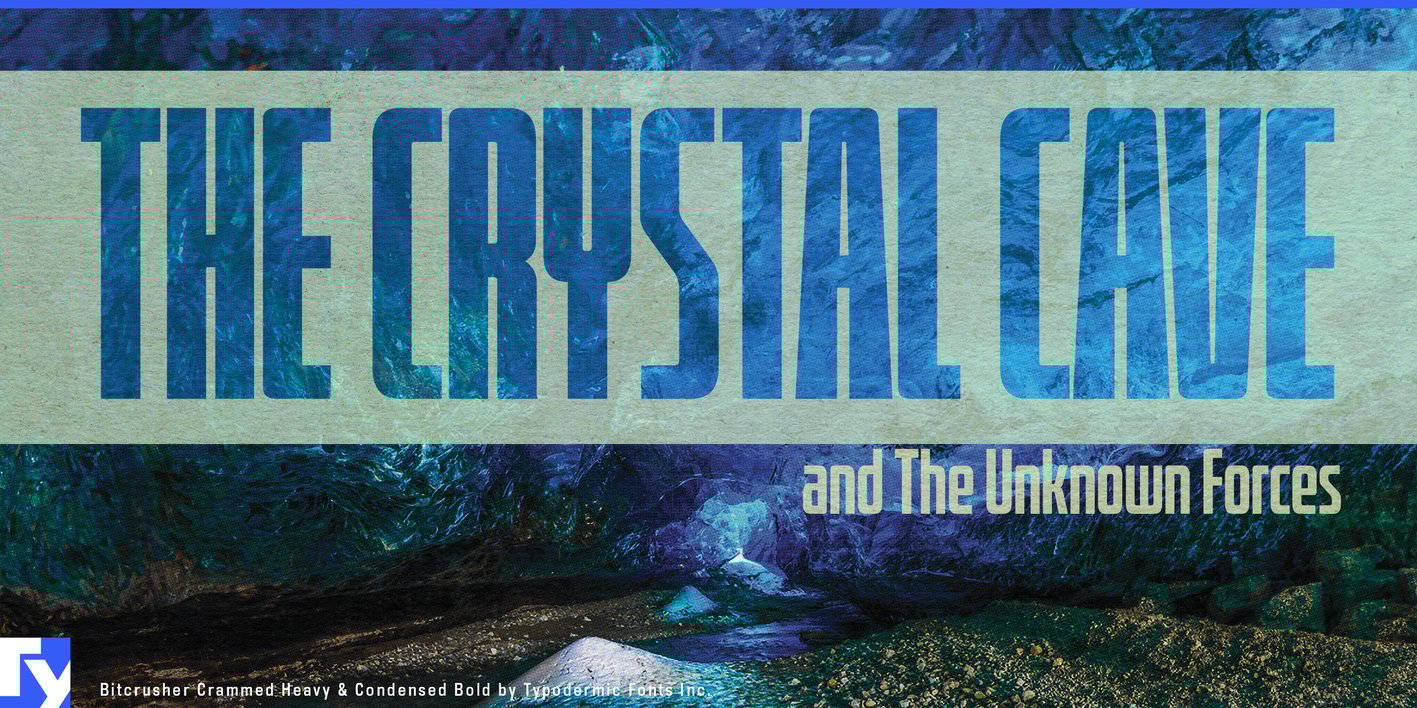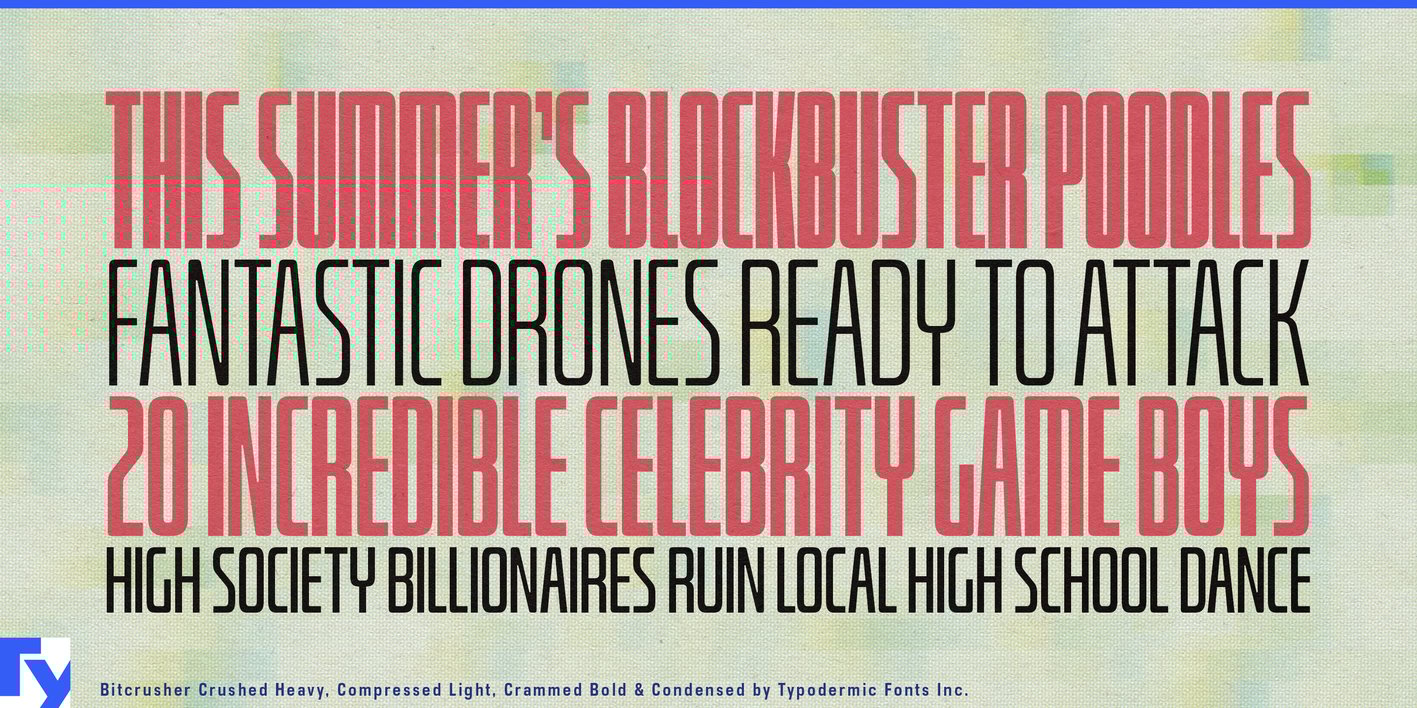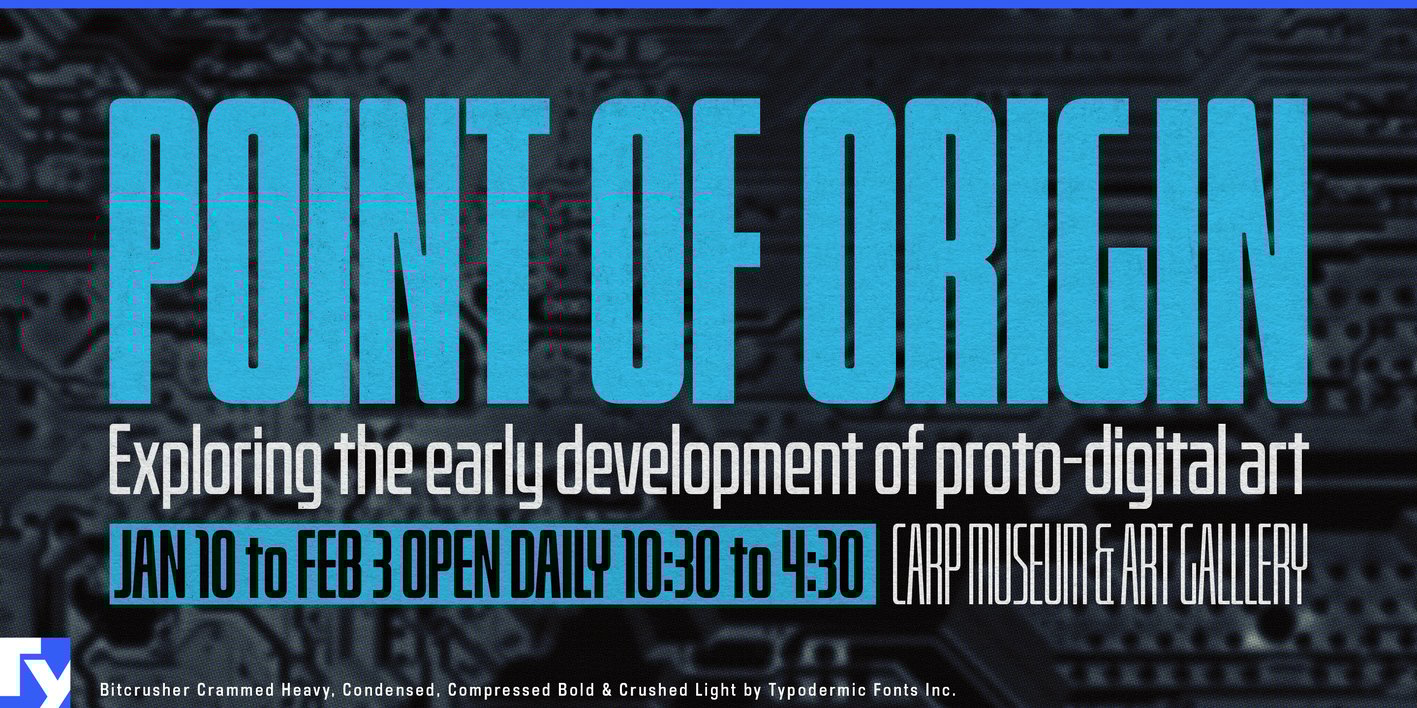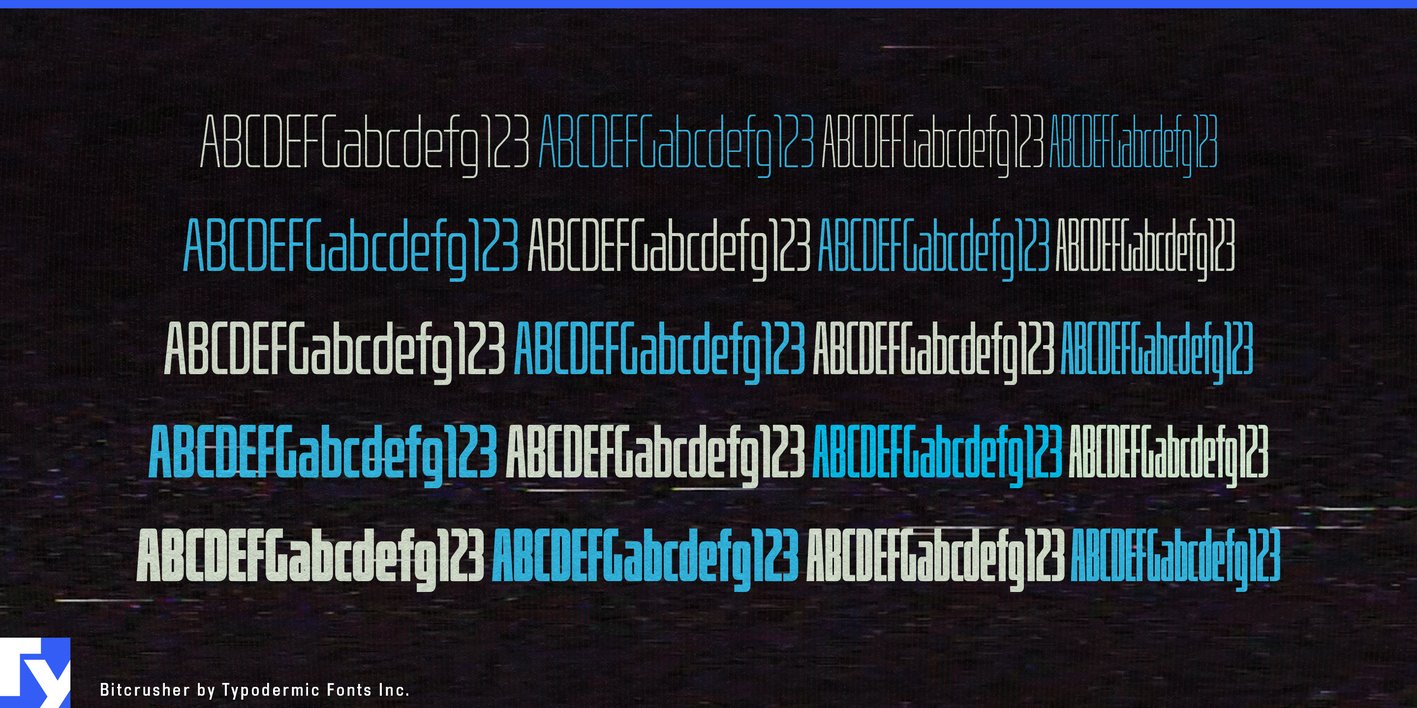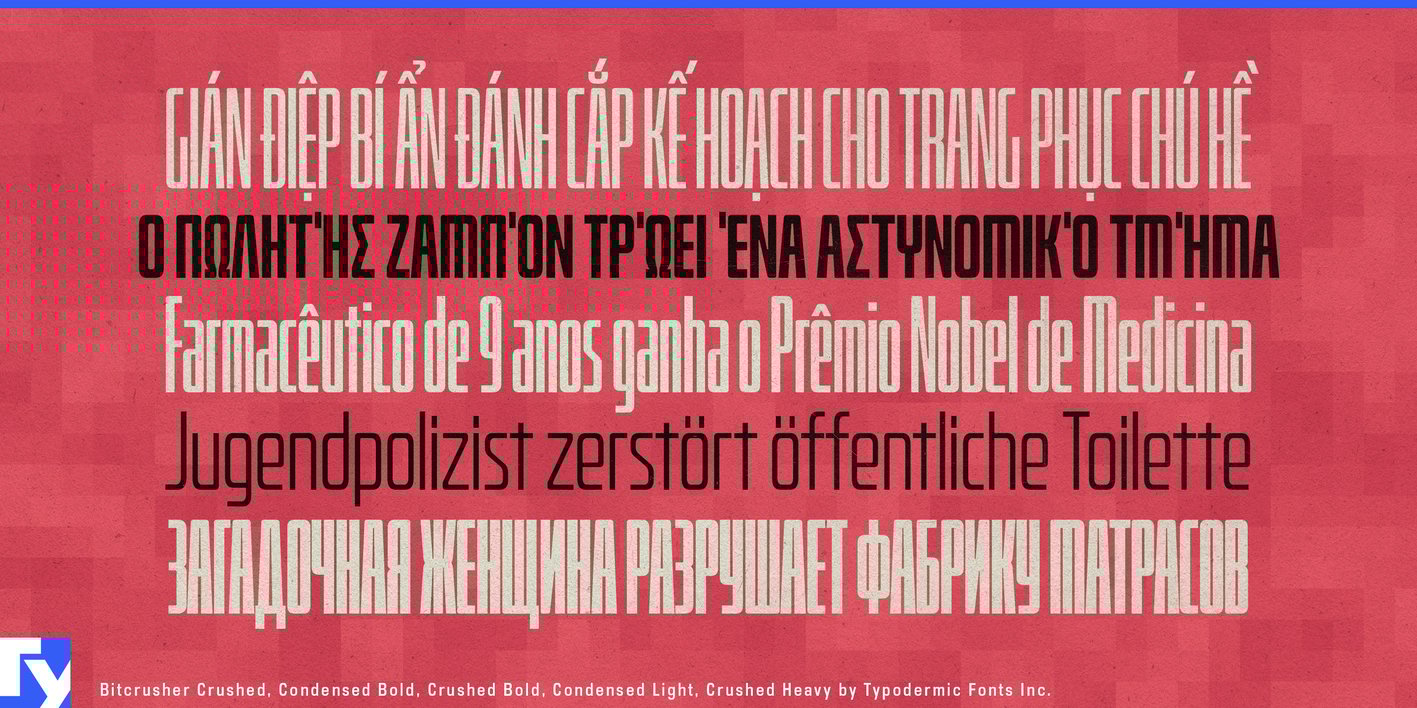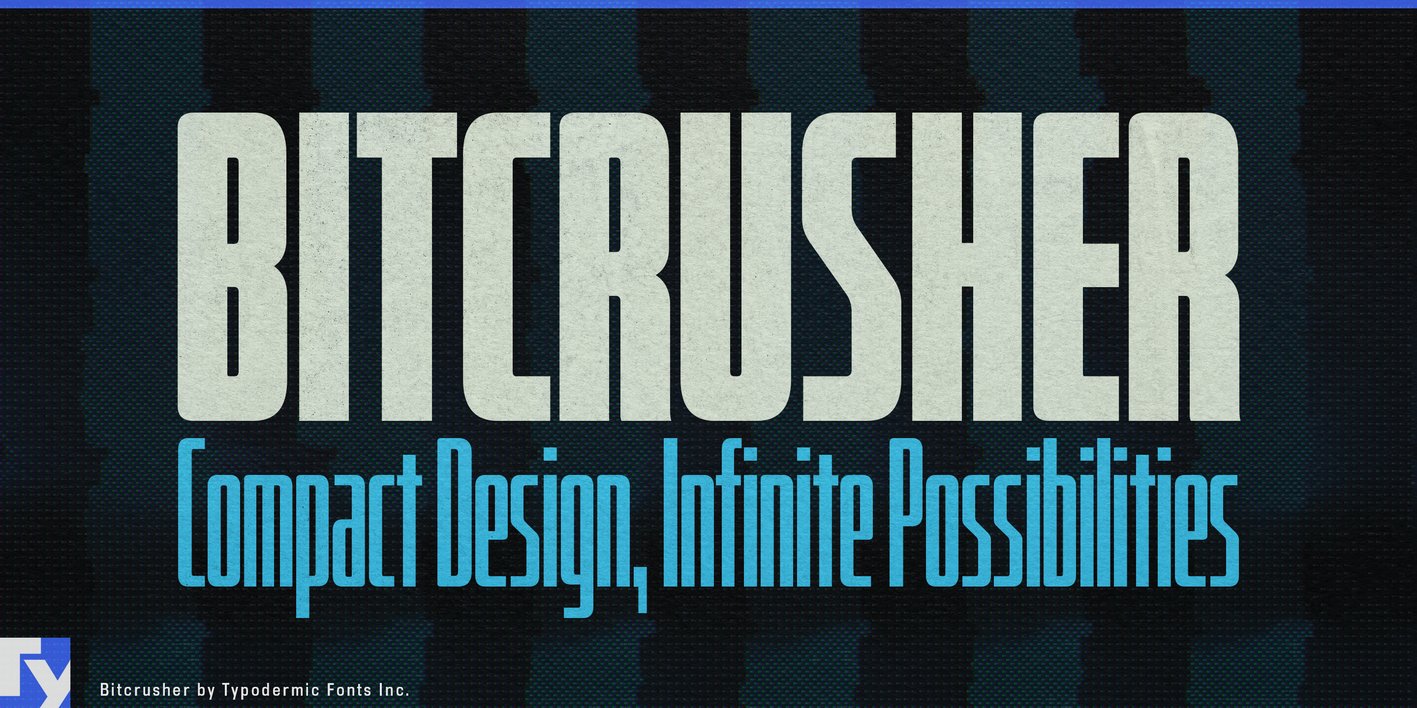
Bitcrusher Font
Bitcrusher is not your ordinary typeface. It is a futuristic, ultra-compact sans-serif font that draws inspiration from the sleek design of automobiles and cutting-edge consumer electronics. Its unique compression capabilities allow you to pack more words into a single line than most techno typefaces can ever dream of. Available in five weights and four widths, Bitcrusher is a versatile font that gives you unprecedented control over your typography. If you need to fit more text into a tight space, Bitcrusher Condensed is the perfect choice. And if you want to push the limits of font compression, Bitcrusher Compressed has already reached the standard limit. For those who demand even more compactness, Bitcrusher Crammed has an abnormally small footprint, while Bitcrusher Crushed has an absurdly high density that defies all conventions. But no matter which variant you choose, you can be sure that Bitcrusher delivers consistent stem, space, and gap widths that allow you to break the rules of scaling and tracking. With Bitcrusher, you have complete control over your typography. Want thicker stems? Simply scale a narrower width to a bigger breadth. Need to go even tighter than Crushed? Make it even thinner. Bitcrusher is a font that cannot be broken. It is the ultimate tool for designers who demand precision and control over their typography. Choose Bitcrusher and discover the power of true compression.